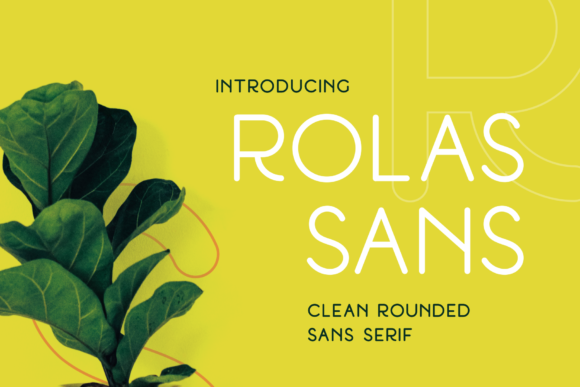
Introduce the Rolas Sans font family, a stunning sans serif creation by herbanuts. Each letter in this font exudes a captivating charm that will make your designs shine. Whether you're a seasoned designer or just starting your creative journey, Rolas Sans is an essential addition to your toolkit.
With its elegant curves and a touch of playfulness, Rolas Sans is designed to infuse your work with a timeless appeal. It's a versatile font that effortlessly adapts to various design styles, from classic to contemporary. Its rounded edges add a sense of warmth and approachability, making it perfect for projects that aim to connect with audiences on an emotional level.
Unleash your creativity with Rolas Sans and watch your designs transform into works of art. Its effortless elegance will elevate any project, from branding and packaging to web design and social media campaigns. Let the captivating curves of Rolas Sans guide you towards design excellence and leave a lasting impression on your audience.